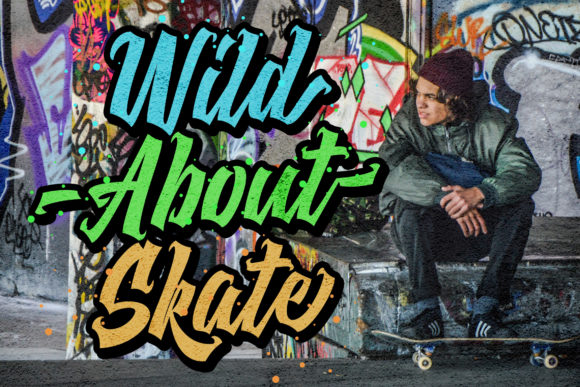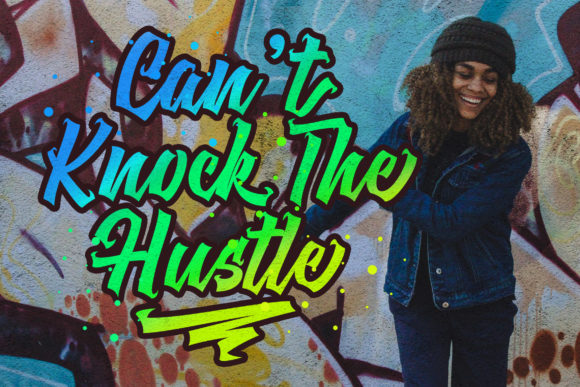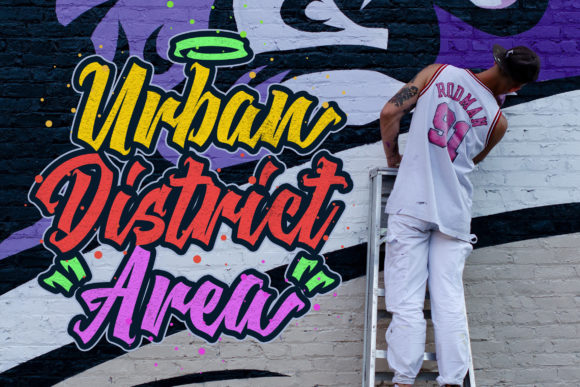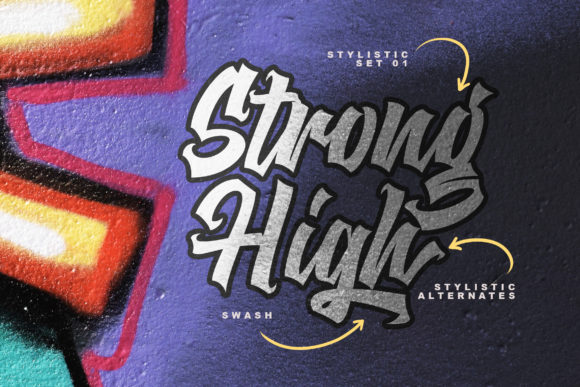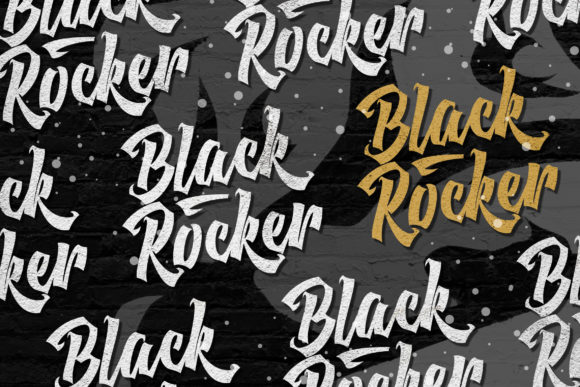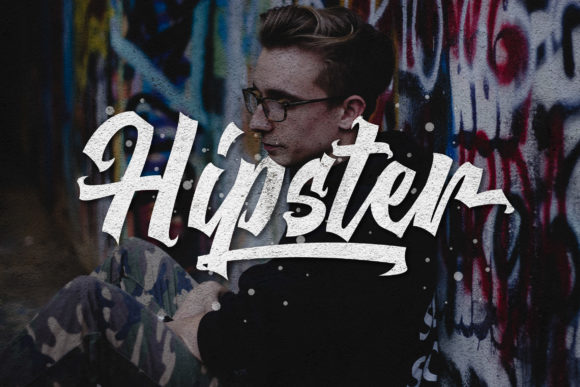
The Designer’s Delight: Brigherdz Font
I’ll never forget the time I was working on a project for a children’s brand, and I just couldn’t find the right font to match their playful vibe. The client wanted something fun, bright, and energetic, but everything I tried seemed either too boring or too over-the-top. That’s when I stumbled upon Brigherdz Font, and it was love at first sight! 💫
A Personal Review of Brigherdz Font
• ✨ Contemporary charm: Brigherdz has a fresh, modern feel that’s perfect for designs that need a youthful twist.
• ✅ Bold and playful: This font doesn’t shy away from making a statement. Its bold strokes and bright personality are sure to grab attention.
• 💡 Versatility: Whether you’re working on a kids’ project, a fashion brand, or even a restaurant menu, Brigherdz can adapt to various design needs.
While Brigherdz is an amazing font, there are a few things to keep in mind:
• ⚠️ Legibility at small sizes: Like many bold fonts, Brigherdz can get a bit tricky to read when scaled down. Make sure to test it at different sizes to ensure it works for your project.
• 🤔 Overuse: Given its bold personality, it’s easy to overuse Brigherdz. Balance it with simpler fonts to maintain visual hierarchy.
The Story Behind Brigherdz
Brigherdz was inspired by the need for a font that embodies both fun and sophistication. Its designer aimed to create a typeface that could seamlessly transition between digital and print, offering a versatile tool for creatives. The result is a font that’s not only visually appealing but also highly functional.
Q: Is Brigherdz suitable for body text?
A: While Brigherdz is stunning, it’s primarily designed for headlines and titles due to its bold nature. For body text, consider pairing it with a simpler, more readable font.